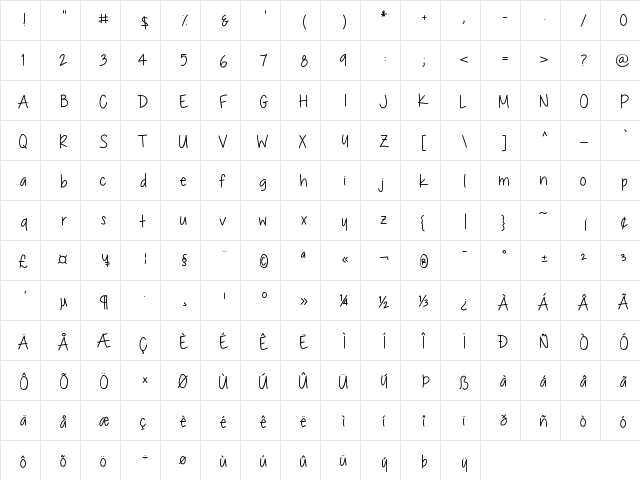
ChocolateCoveredRaindrops Medium
| Designer | Vanessa Bays |
Design Context for ChocolateCoveredRaindrops Typeface
ChocolateCoveredRaindrops takes a measured approach to typography — its balanced proportions and neutral character make it a reliable workhorse for both digital and print work.
Pro Tip: Use ChocolateCoveredRaindrops in both headline and body roles to test its range before committing to a single application.